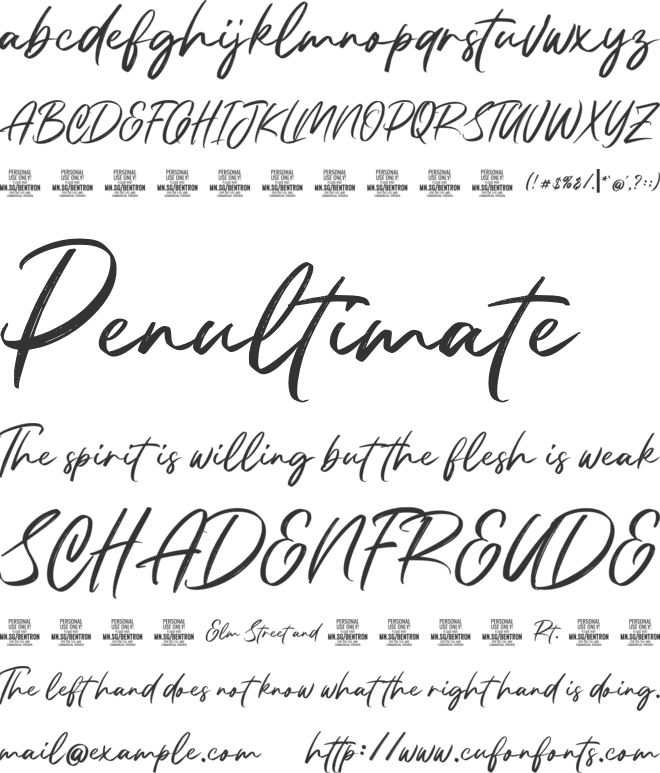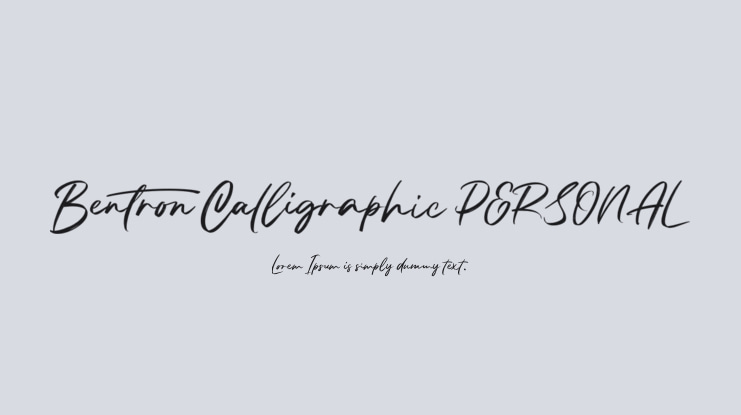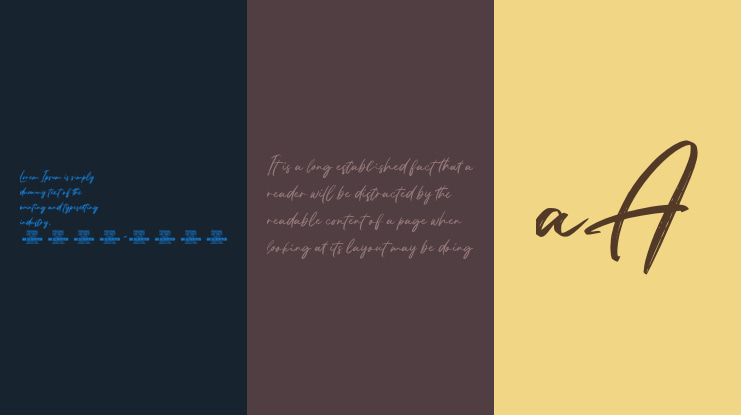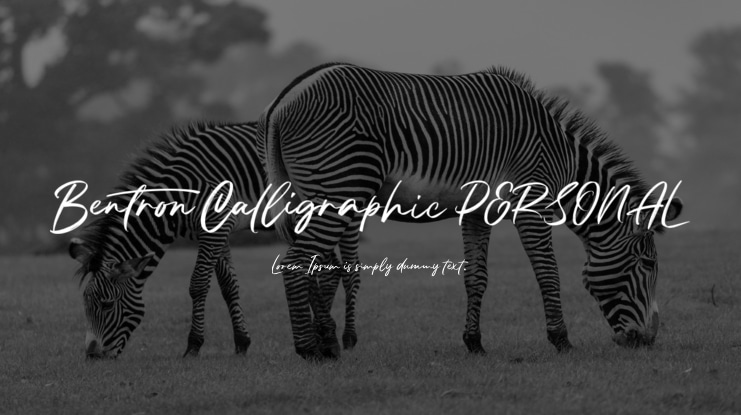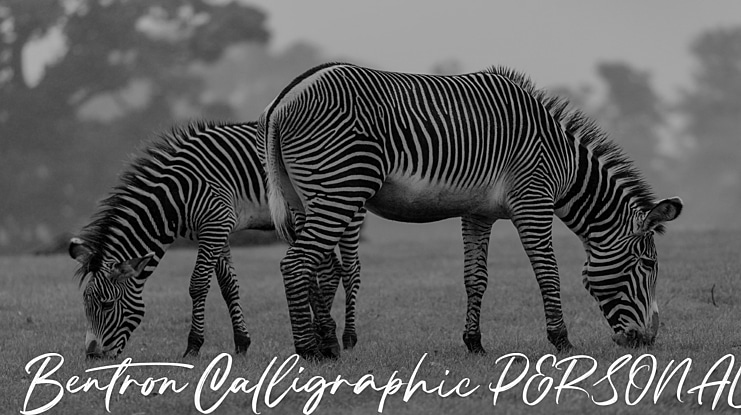
Bentron Calligraphic PERSONAL Font
Mans Greback
Bentron Calligraphic is a bold and beautiful brush font with a touch of speed and sophistication.
Its rapid strokes and dynamic flow give it a signature-like quality that is perfect for adding a personal touch to your projects.
Designed by Mans Greback with a focus on the art of calligraphy, Bentron Calligraphic exudes elegance and grace with its smooth curves and flowing lines.
Use underscore _ to create a swash anywhere in a word.
Example: Space_jams
Use multiple underscores to create different swashes.
Example: Signa____tures